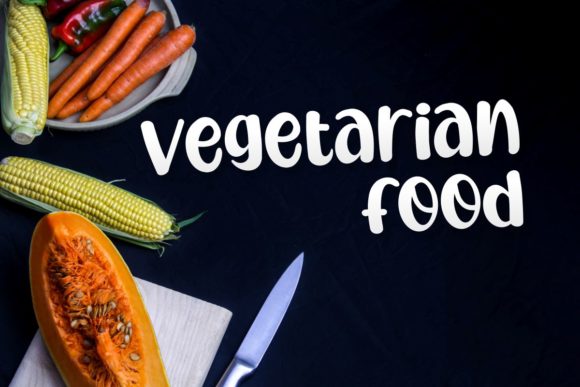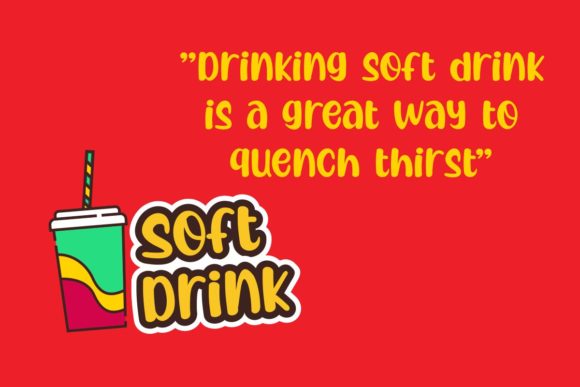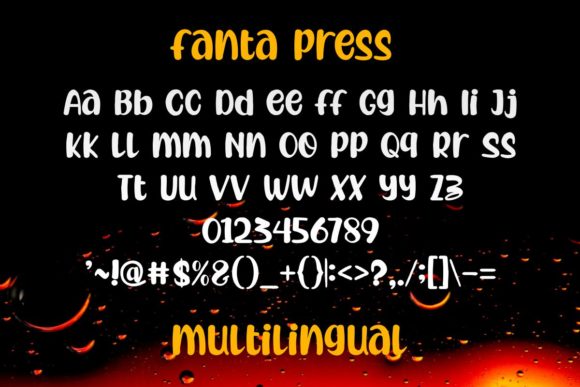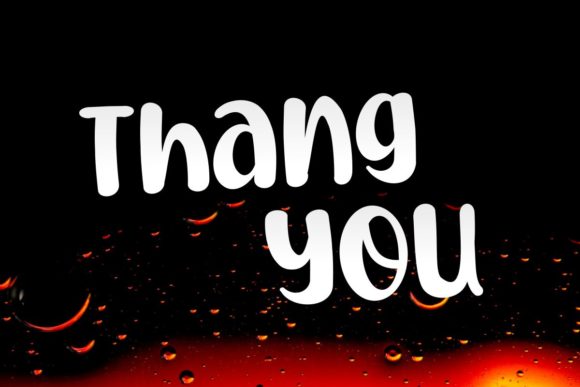
Give Your Creative Projects a Pop of Personality with Fanta Press Font
Who hasn’t had that moment when inspiration strikes, and you’re desperate to put your ideas into action? The blank page stares back at you, waiting for that perfect spark to ignite your creativity. As a designer, you know how crucial it is to find the right tools to bring your vision to life. That’s where the Fanta Press Font comes in – a flowing and chunky lettered display font designed to add a touch of whimsy and personality to your work.
This versatile font is not just a pretty face; it’s a valuable addition to any designer’s toolkit. With its unique blend of elegance and playfulness, Fanta Press Font is perfect for making a statement and grabbing attention. Whether you’re working on a logo, social media graphics, or a marketing campaign, this font is sure to elevate your designs and leave a lasting impression.
Fanta Press Font Key Features
- Unique Characteristics: Fanta Press Font features a distinctive, playful design with bold lines and vibrant colors, making it perfect for creating eye-catching headlines and titles.
- Font Style: Fanta Press Font is available in regular and bold weights, allowing for flexibility in design and layout.
- Support for Advanced Typography: The font supports advanced typography features, including ligatures, swashes, and ornaments, which can be used to add a touch of elegance and sophistication to designs.
Fanta Press Font Review
I recently had the chance to work with Fanta Press Font, and I must say it’s a unique addition to any design project. Here’s my honest review:
- The bold and playful nature of the font makes it perfect for eye-catching headlines and titles.
- Fanta Press Font’s script-like quality adds a touch of elegance and sophistication to any text.
- It’s great for creating a sense of energy and dynamism in your designs, especially in the world of packaging and branding.
- One of the main limitations of Fanta Press Font is its lack of versatility in smaller text sizes.
- It can be a bit challenging to read in long blocks of text, making it more suitable for shorter, punchier copy.
- Additionally, some characters may appear a bit inconsistent in terms of spacing and alignment.
Overall, Fanta Press Font is a great addition to any designer’s toolkit. While it may have its limitations, its unique character and playful nature make it a great choice for certain types of projects. Just be sure to use it wisely and in conjunction with other fonts to create a balanced and effective design.
Getting the Most Out of Fanta Press Font
Use Fanta Press Font to add a playful and nostalgic touch to your designs. This font is perfect for:
- Creating retro-style posters and advertisements.
- Designing packaging and labels for food and beverage brands.
- Adding a vintage flair to your social media graphics and blog posts.